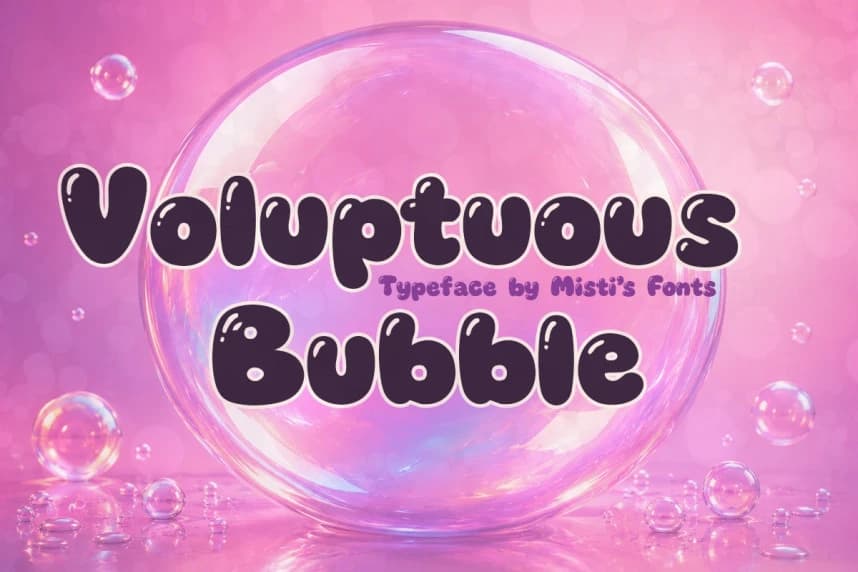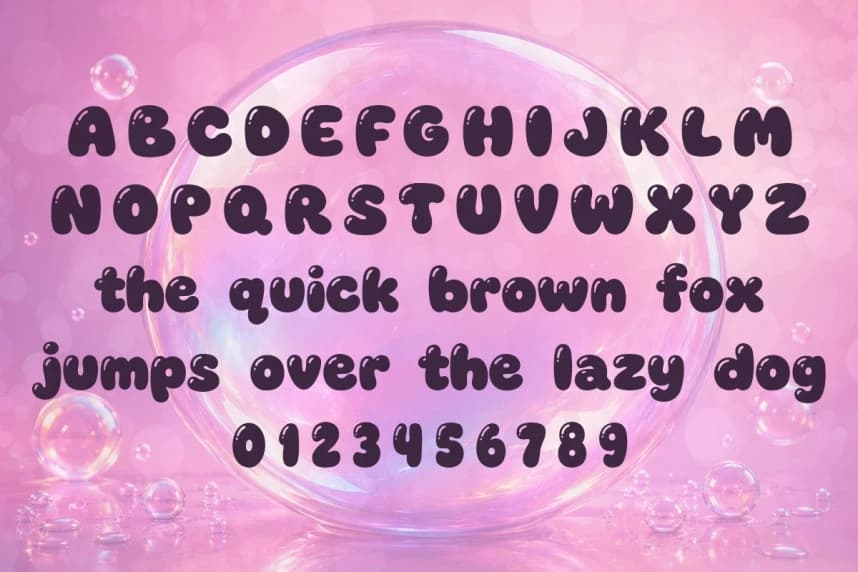
Voluptuous Bubble Font
Voluptuous Bubble Font. Boasting thick and well-rounded characters, this font is an ode to the childlike simplicity of bubble letters and the joyous, pop-culture nostalgia of bubble gum.